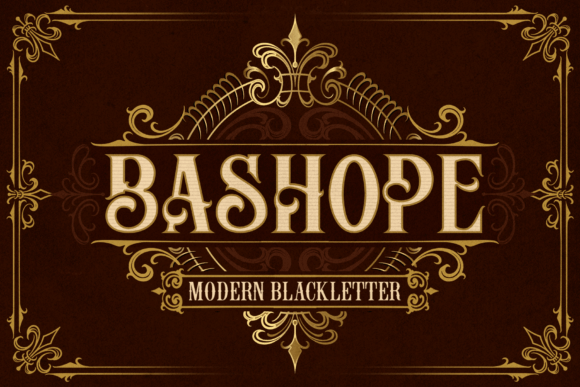
Introducing Bashope Font, the ultimate blackletter font that will make your website stand out! Created by Dansdesign, this vintage-style font is perfect for anyone looking to add a touch of bold and daring typography to their branding or product packaging.
With its unique and intricate design, Bashope Font is the perfect addition to any modern website that needs to make a statement. Its captivating and emotional design will instantly capture the attention of your users and leave them wanting more.
As one of the best fonts for modern websites, Bashope Font is keyword-rich, informative, and captivating. Its versatility makes it suitable for a wide range of projects, from branding to packaging, making it an excellent investment for any business looking to elevate their brand.
So why settle for a plain and boring font when you can have Bashope Font? With its vintage and blackletter design, this font will help your website to stand out from the competition and leave a lasting impression on your users.
In conclusion, if you're looking for a font that will elevate your website's design, look no further than Bashope Font. With its bold and daring typography, this font is sure to make a statement and capture the attention of your users.